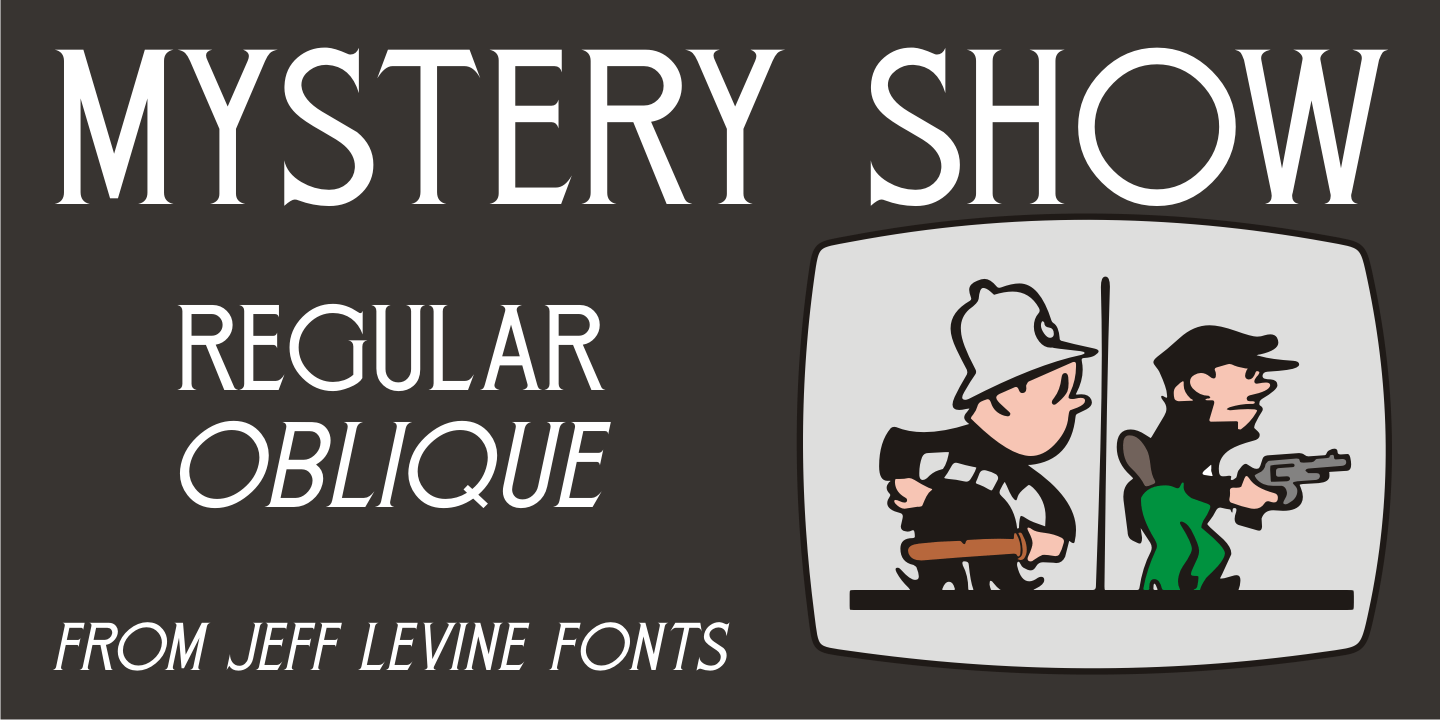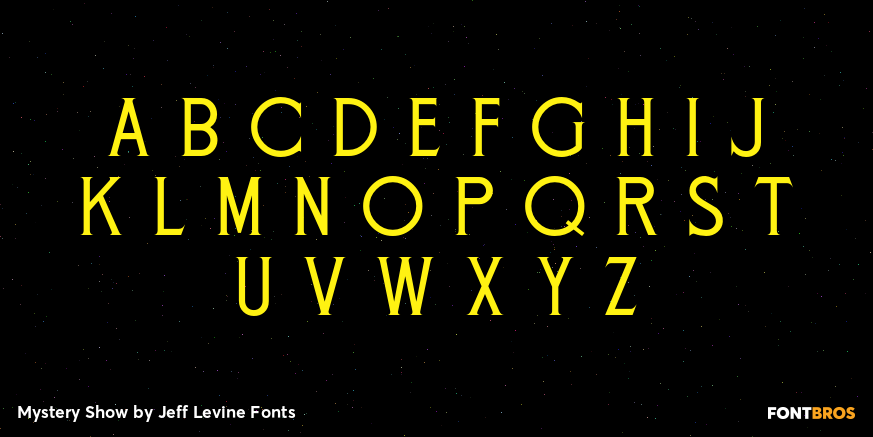
Mystery Show
Mystery Show JNL was modeled after the hand lettered titles found on various early episodes of the 1950s TV suspense program 'Alfred Hitchcock Presents”.
The design emulates characteristics found in Frederic W. Goudy's Copperplate Gothic [a sans serif of equal stroke weights with tiny spurs added], but is considered a serif font by the addition of the spurs.
Mystery Show JNL is available in both regular and oblique versions.